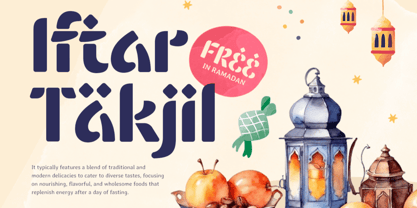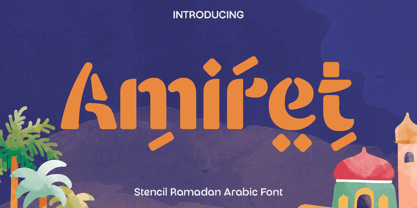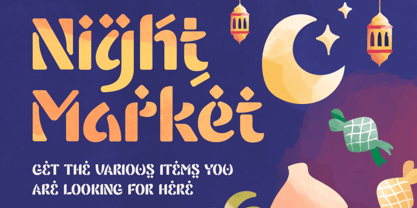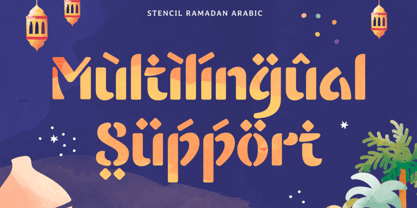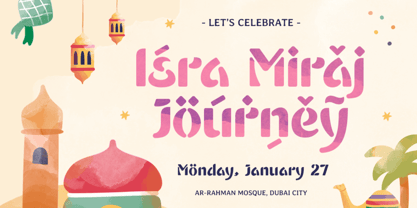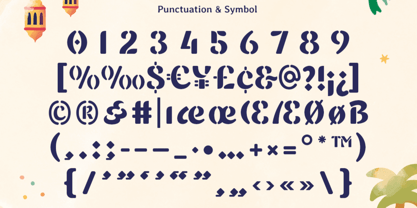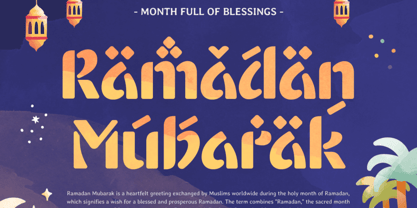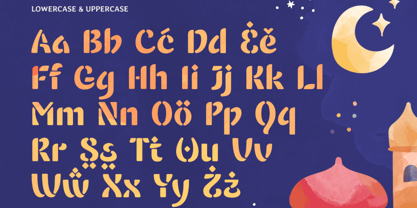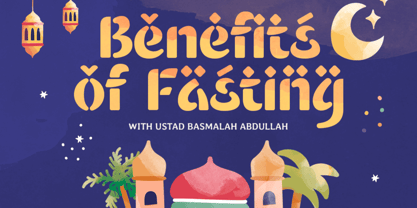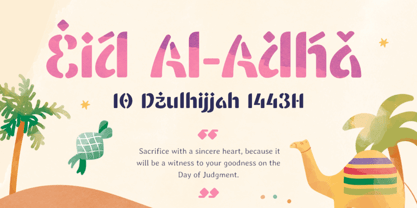
Amiret
by Only Fonts
The Amiret Font Family was designed by Olivia Love and published by Only Fonts. Amiret contains 1 styles. More about this family
Amiret – Fun Stencil Ramadan Arabic Font Amiret is a playful Arabic-inspired stencil font designed to capture the joyful spirit of Ramadan and festive celebrations. This font beautifully blends traditional Arabic influences with a modern and lighthearted stencil style, infusing warmth, creativity, and vibrant energy into every design. Its dynamic curves and artistic details create a unique visual personality that feels expressive, cheerful, and culturally rich. Created for festive and creative projects, Amiret is perfect for Ramadan posters, Eid greeting cards, invitations, branding, packaging, social media content, decorative headlines, and promotional materials. The playful stencil construction gives the font a distinctive appearance that instantly grabs attention while maintaining an elegant connection to Arabic-inspired design aesthetics. Amiret is crafted for designers seeking typography that is both meaningful and visually engaging. Its alternate characters provide flexibility and creative freedom, allowing you to build unique compositions with personality and charm. Whether used for modern festive campaigns or artistic cultural projects, Amiret adds a memorable and joyful atmosphere that enhances every visual experience. The combination of tradition and modern creativity makes Amiret versatile across both print and digital applications. It is an excellent choice for creators looking to celebrate Islamic culture with typography that feels fresh, fun, and inspiring. Amiret Fun Stencil Ramadan Arabic Font Features: • Alternate characters ready • Punctuation, numbers, and symbols • Uppercase and lowercase • OpenType features • Multilingual support for 50 plus languages • Playful stencil Arabic-inspired style • Perfect for Ramadan, Eid, invitations, branding, and festive campaigns
Designers: Olivia Love
Foundry: Only Fonts